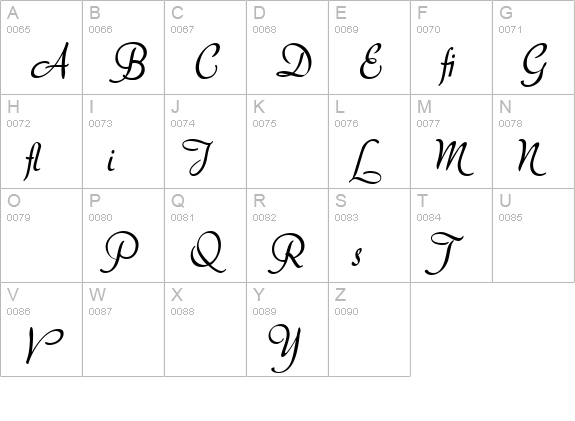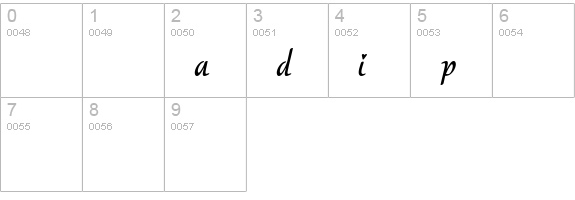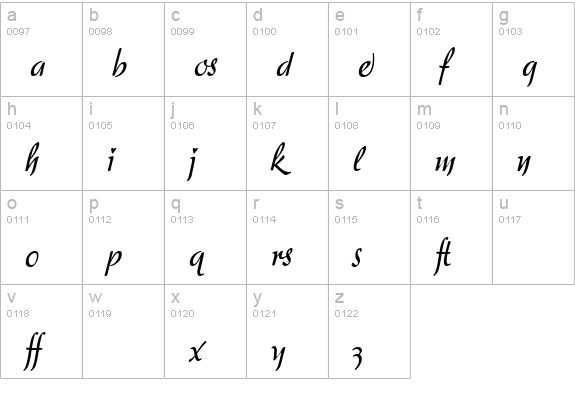
Adore Alt Font Details
Adore Alt font is a charming and elegant typeface that exudes sophistication and grace. With its delicate curves and unique alternate characters, this font is perfect for adding a touch of class to your projects. Whether you're designing invitations, branding materials, or social media graphics, Adore Alt font will elevate your work to the next level. Best of all, Adore Alt font is completely free to download at FontsMarket.com. Simply visit the website and start using this beautiful typeface in your designs today. Don't miss out on the opportunity to enhance your creations with the timeless beauty of Adore Alt font.